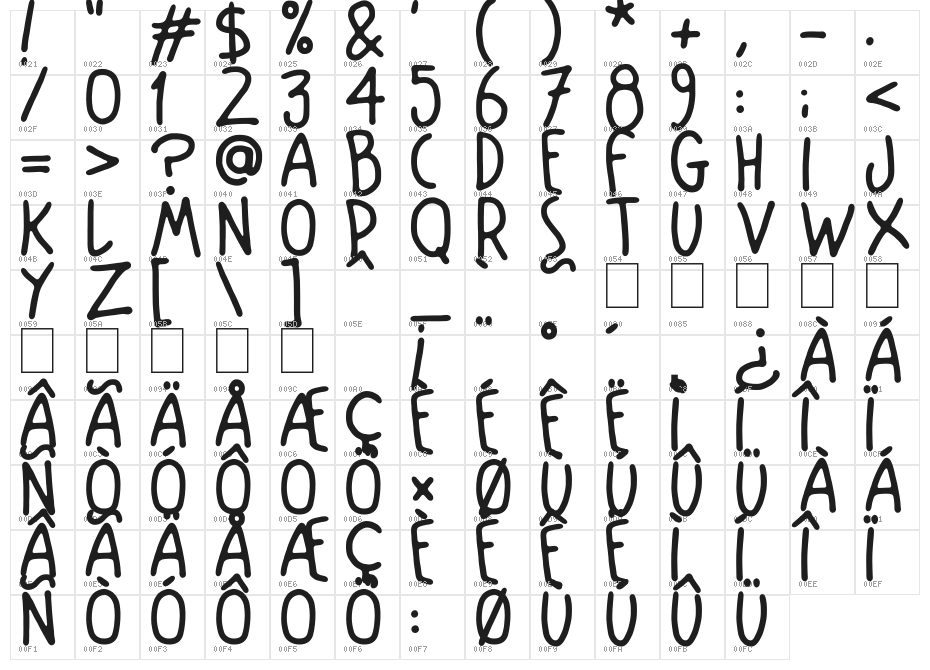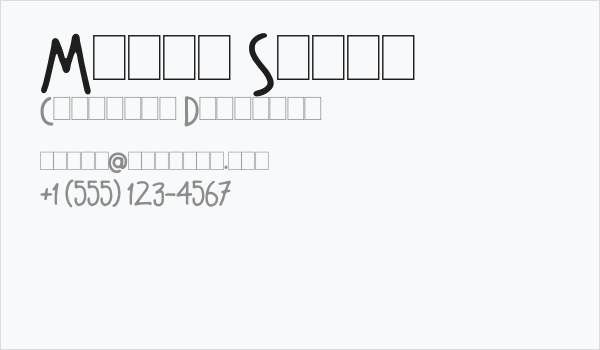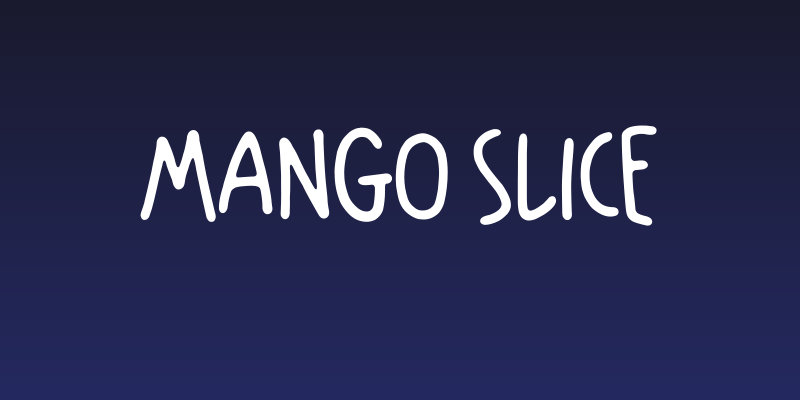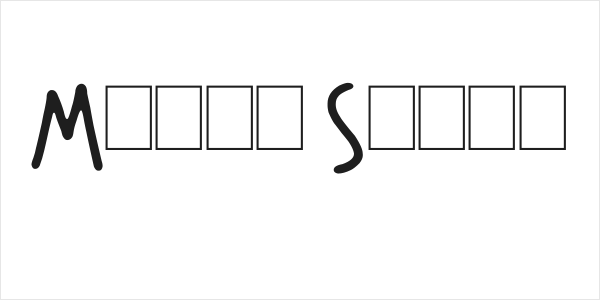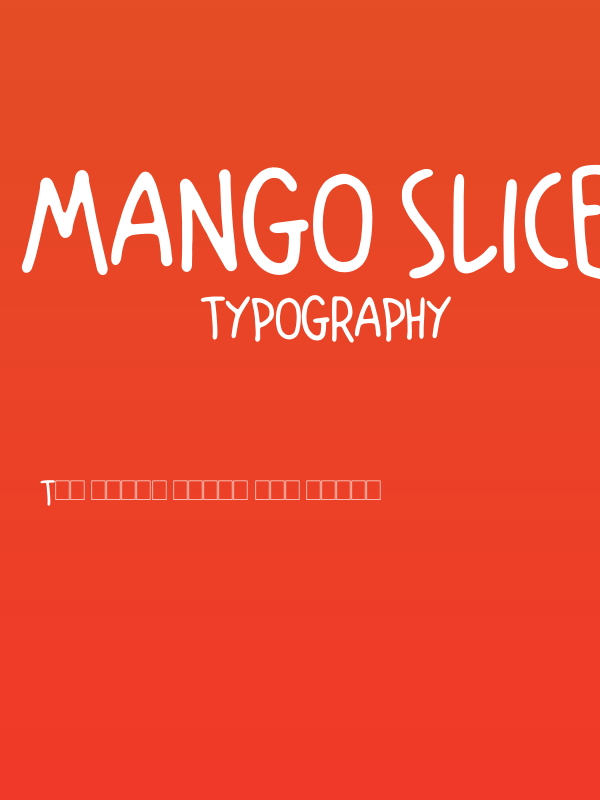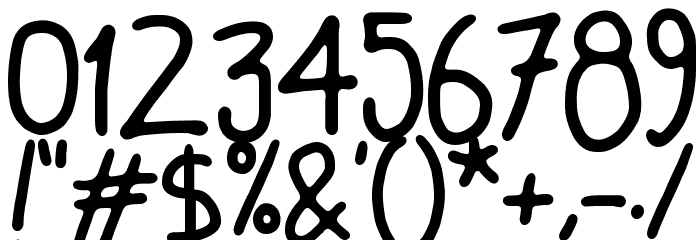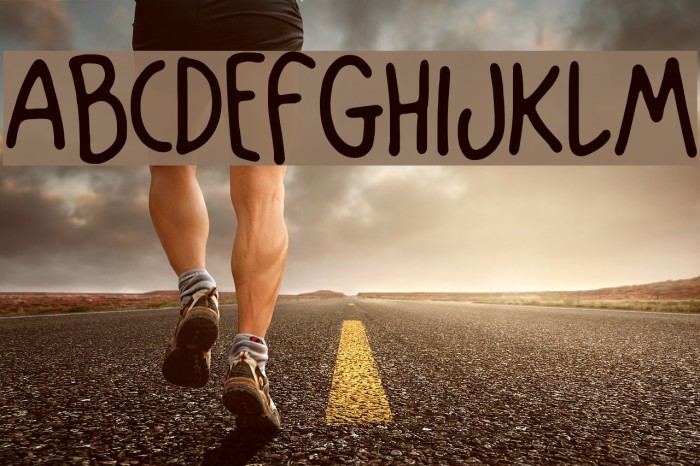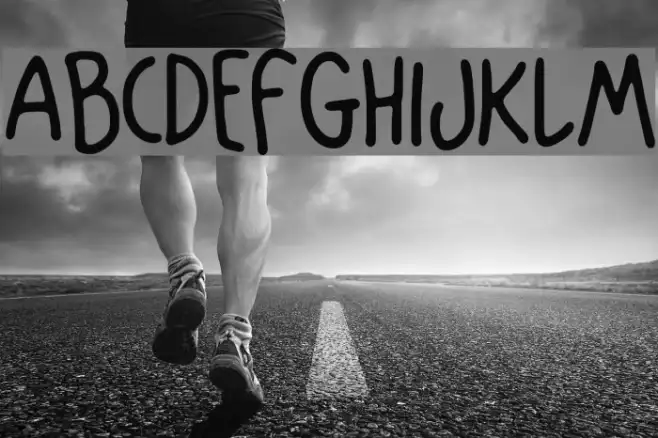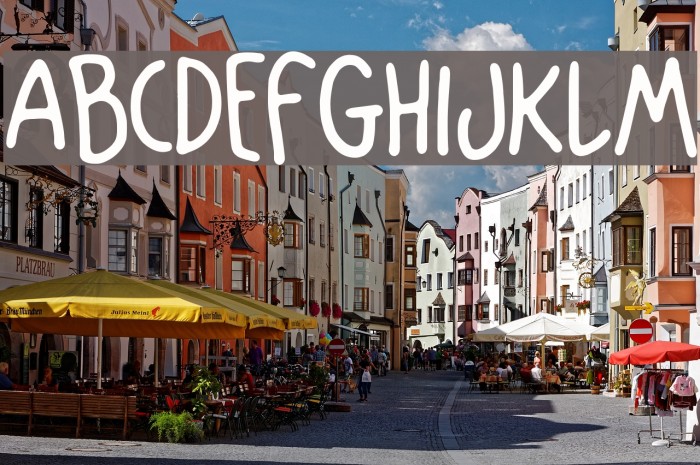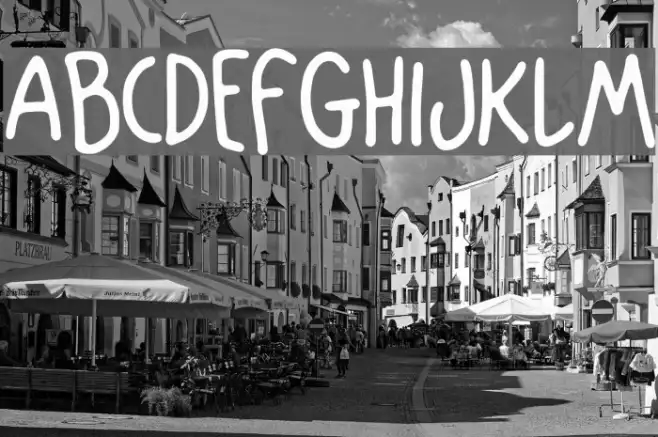
Mango Slice Font
Mango Slice Description
This playful and energetic font features a handwritten style with a casual and informal appearance. The letters are slightly irregular, adding a sense of whimsy and personality. The strokes are bold and rounded, giving the font a friendly and approachable feel. The characters are well-spaced, ensuring readability while maintaining a dynamic flow. This font is perfect for projects that require a fun and lively touch, such as children's books, greeting cards, or playful branding. Its unique style makes it stand out, capturing attention with its vibrant and cheerful aesthetic.
| Proposed Projects | Ideal for children's books, greeting cards, playful branding, and any project needing a fun, lively touch. |